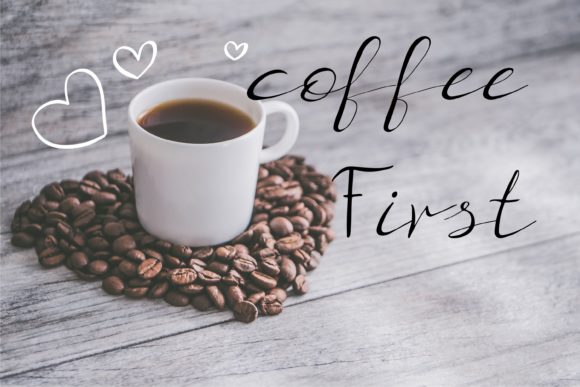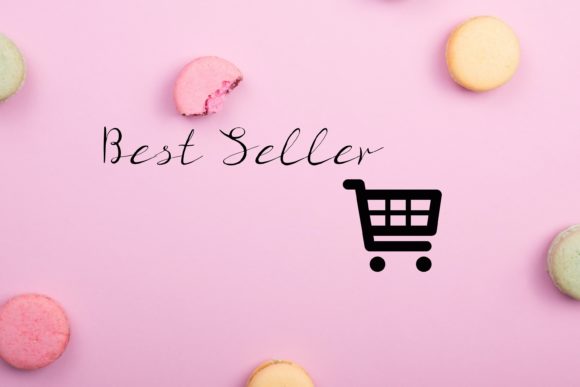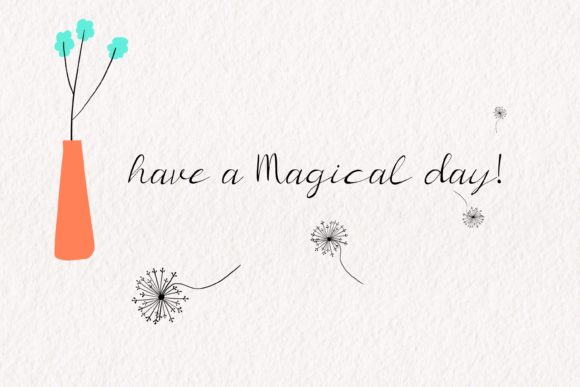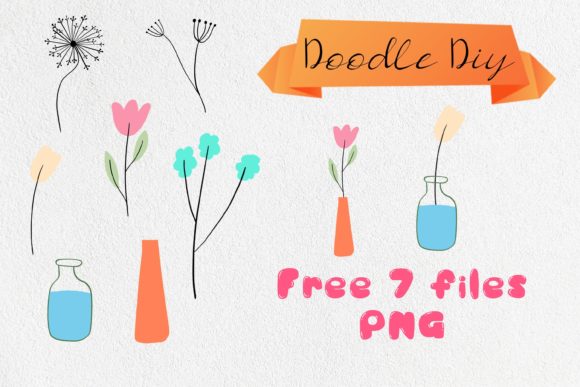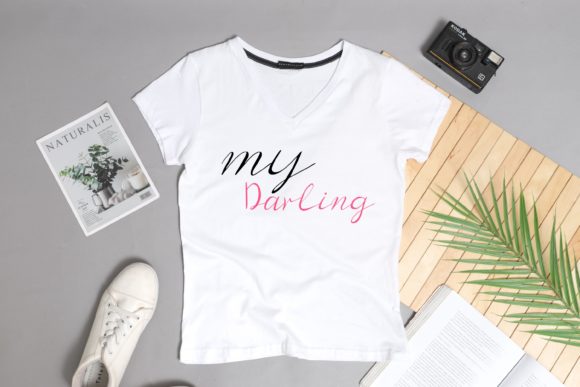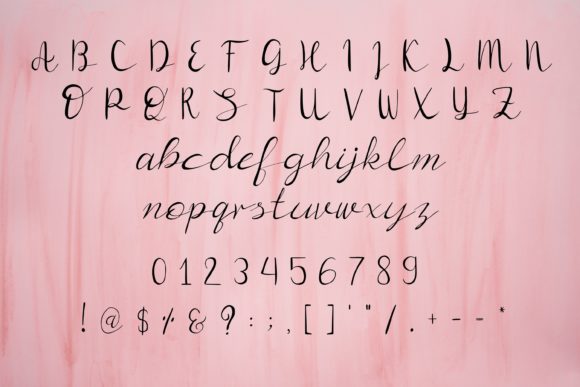
Coffee First Font
About Coffee First Font
Coffee First is a simple lettered, joyful and beautiful script font. Fall for its ravishing style and use it to create gorgeous wedding invitations, beautiful stationary art, eye-catching social media posts, and much more.